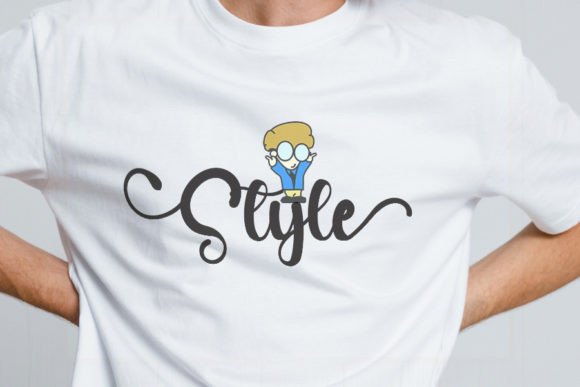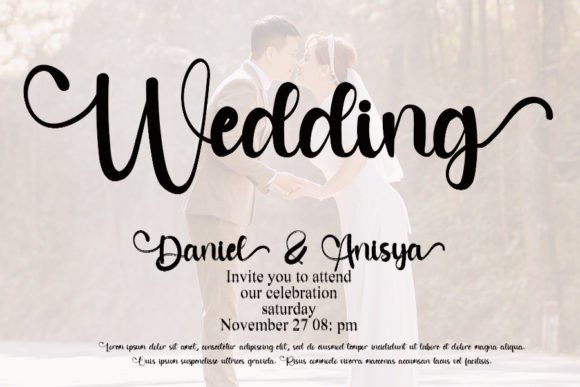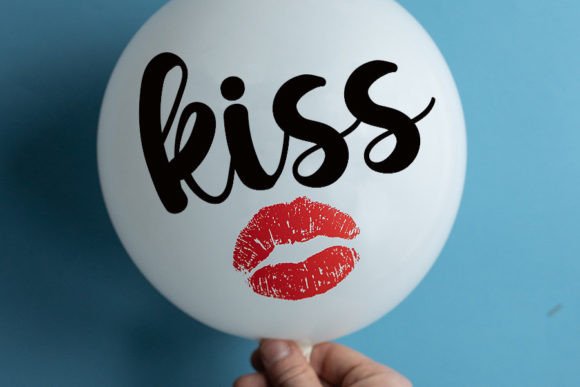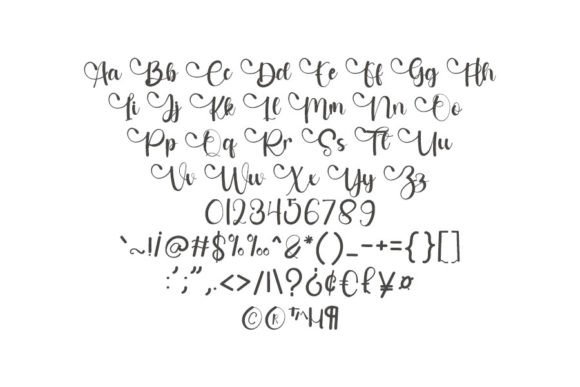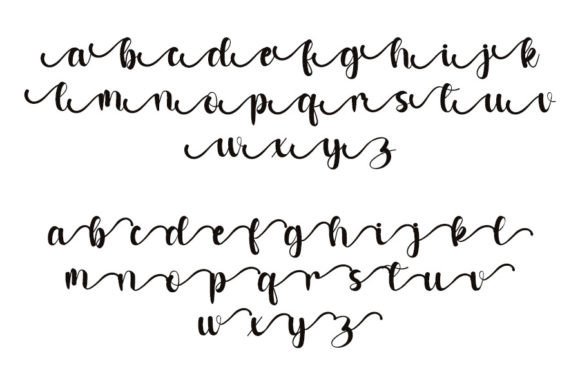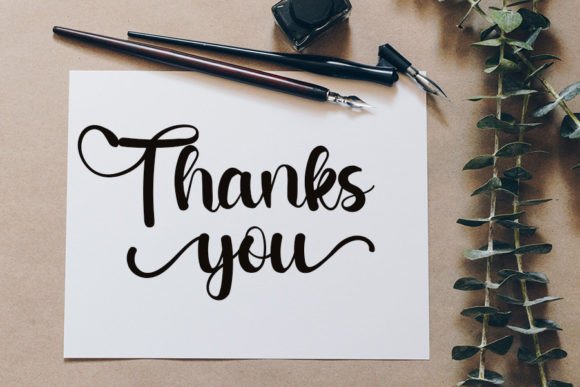
Sometime Font
About Sometime Font
A Stylish Handwritten Touch
The Sometime font download offers a clean, handwritten style with a contemporary edge. Inspired by timeless calligraphy, this font strikes the perfect balance—not too thin, not too thick. Its smooth flow and varied structure make it visually appealing and highly readable.
Designed for Versatile Use
This font shines across various design projects. Whether you’re creating a personal logo or developing high-end packaging, Sometime font adds a modern, personal flair. It works beautifully in:
• Logos and branding
• Wedding invitations and stationery
• Instagram quotes and posts
• Greeting cards and posters
• Product packaging and labels